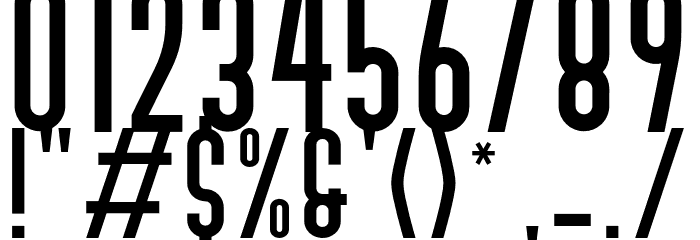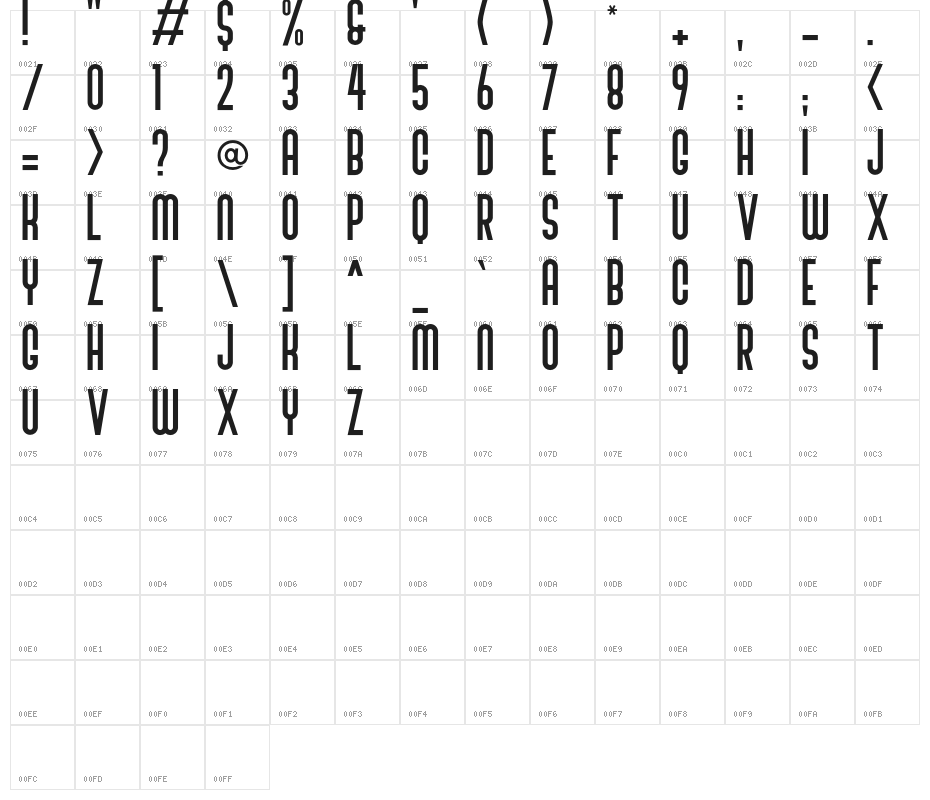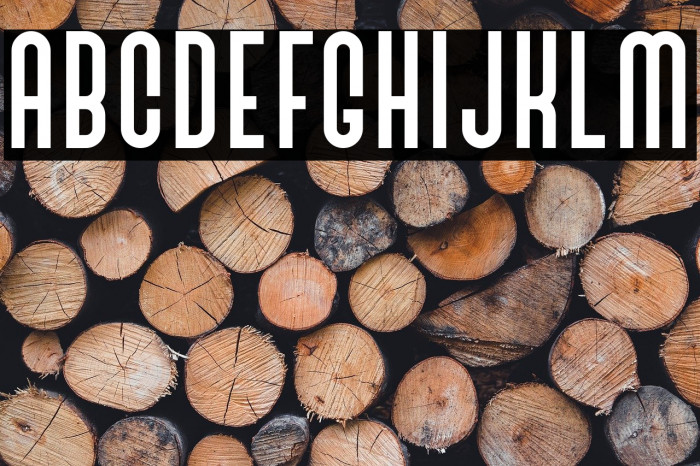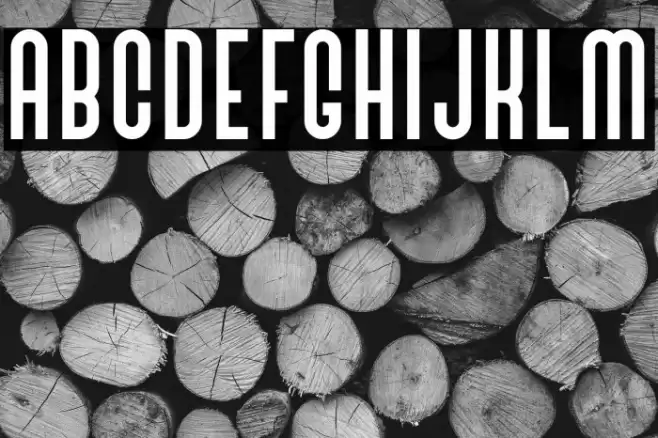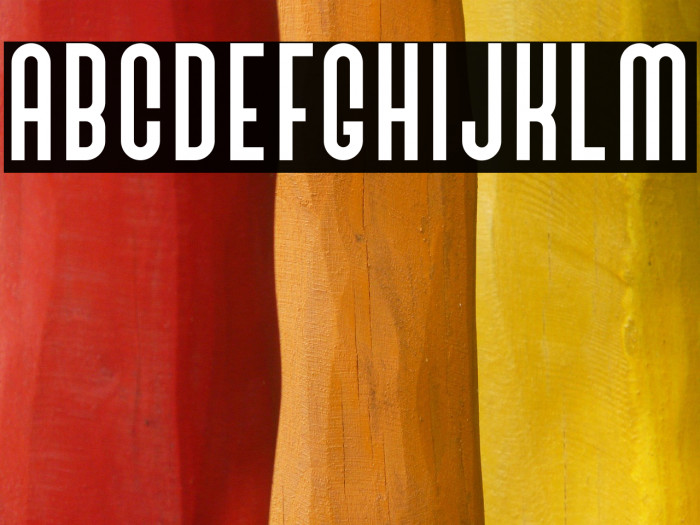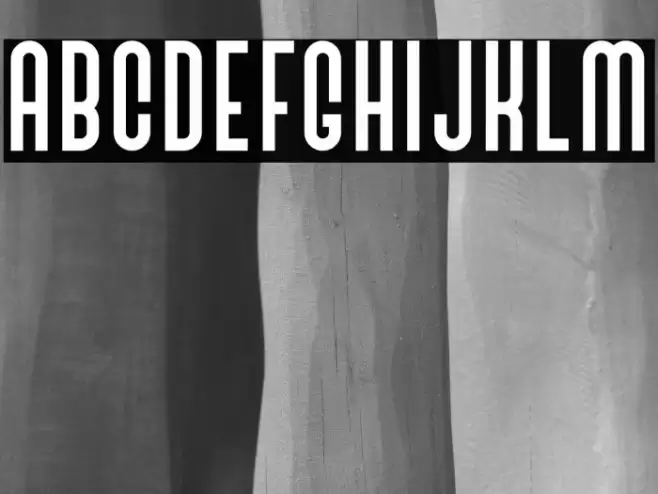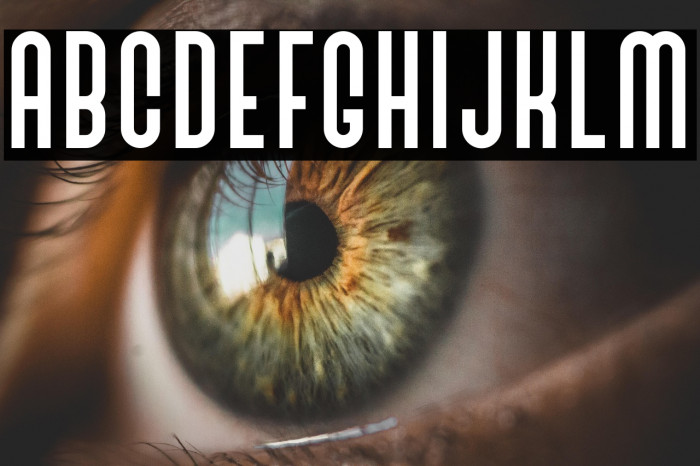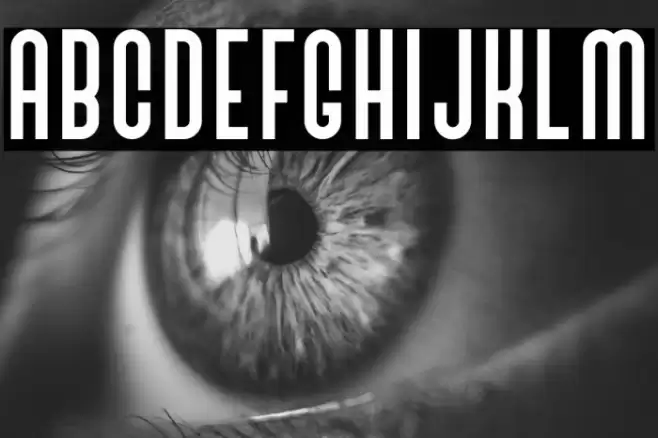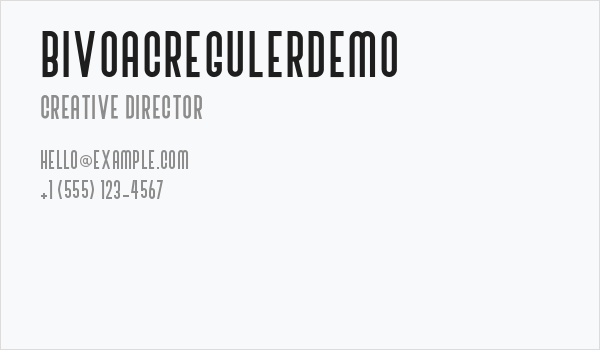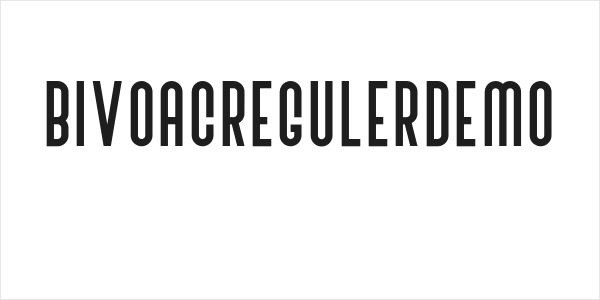
BivoacRegulerDemo Font
BivoacRegulerDemo Description
This font features a bold and condensed style with tall, narrow letterforms that create a strong visual impact. The uppercase letters are uniform in height, with a consistent stroke width that adds to its bold appearance. The lowercase letters maintain the same condensed style, ensuring readability while preserving the overall aesthetic. The numerals are distinct and align well with the letterforms, providing a cohesive look. Special characters are designed to match the bold and condensed nature, making them suitable for various applications. The font's geometric structure and clean lines give it a modern and professional feel, ideal for projects that require a strong and assertive typeface.
| Proposed Projects | Ideal for headlines, posters, branding, and advertising where a strong visual impact is needed. |